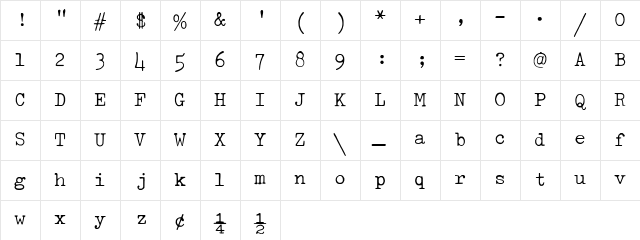
01196c2 Regular
Design Context for 01196c2
01196c2 is a composed and adaptable typeface that performs quietly and consistently across a wide range of design contexts.